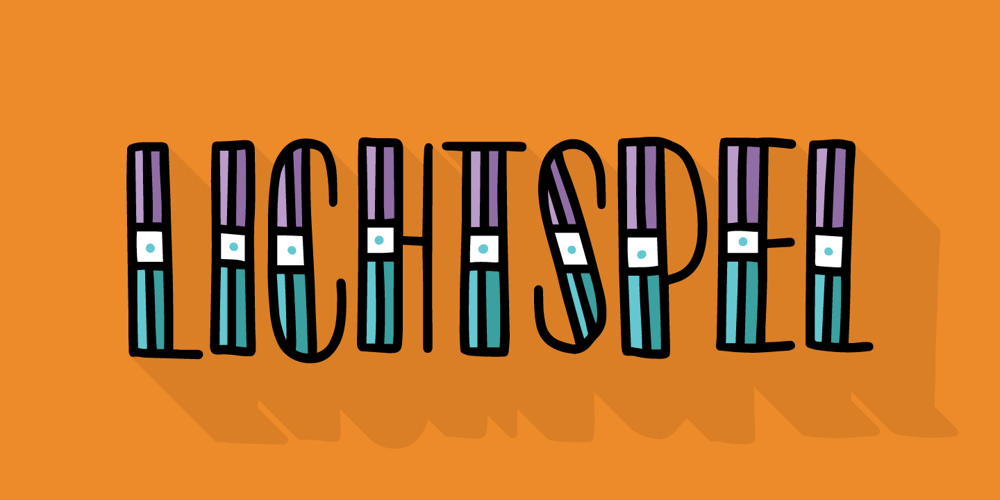
Lichtspel Font Family was designed by Jakob Fischer and published by PizzaDude.dk. Lichtspel contains 6 styles and family package options. Lichtpel is dutch for a play of lights, just like in a painting. The font comes in 6 different versions, and they all fit together so that you can play around with different colours and shading.